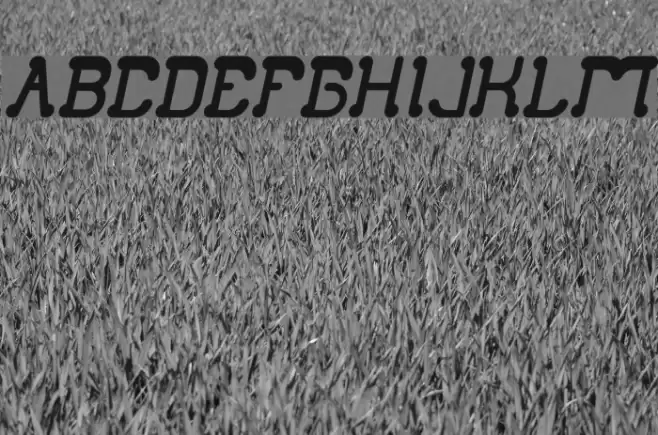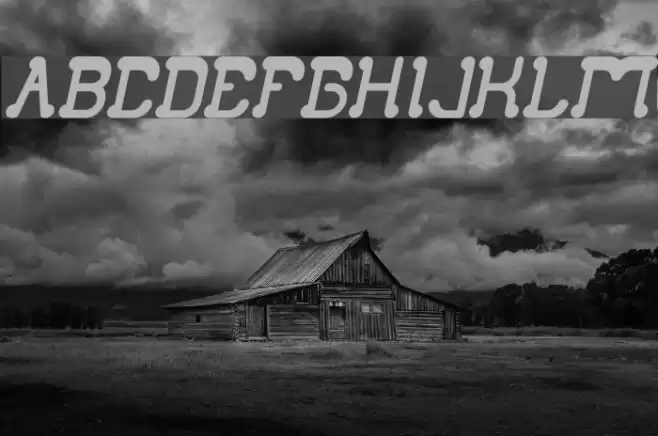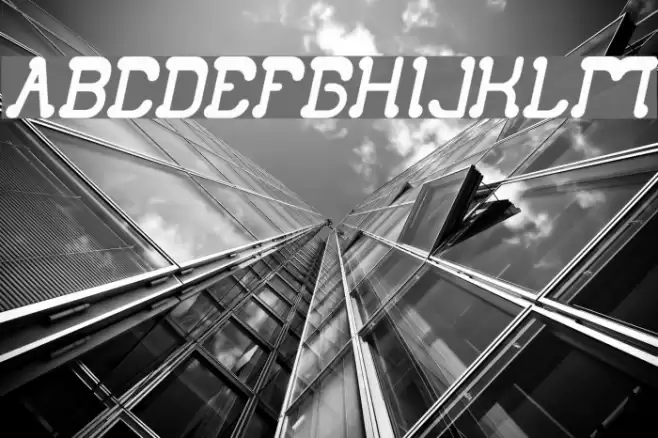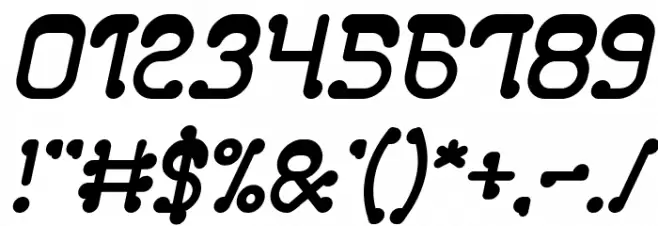
Club Golf Bold Italic Font
Club Golf Bold Italic Description
This font features a bold and italicized style with a unique, playful character. The letters are rounded and slightly slanted, giving a sense of movement and dynamism. The uppercase letters are distinct with a uniform thickness, while the lowercase letters maintain a consistent flow, enhancing readability. Numbers are bold and clear, matching the style of the letters. Special characters are well-integrated, maintaining the font's cohesive look. This font's boldness and italic nature make it stand out, suitable for creative and expressive designs.
A bold, italicized font with rounded, playful characters and dynamic slant from Uncategorized fonts.
- Proposed Projects: Ideal for branding, posters, and creative projects that require a bold and dynamic look.